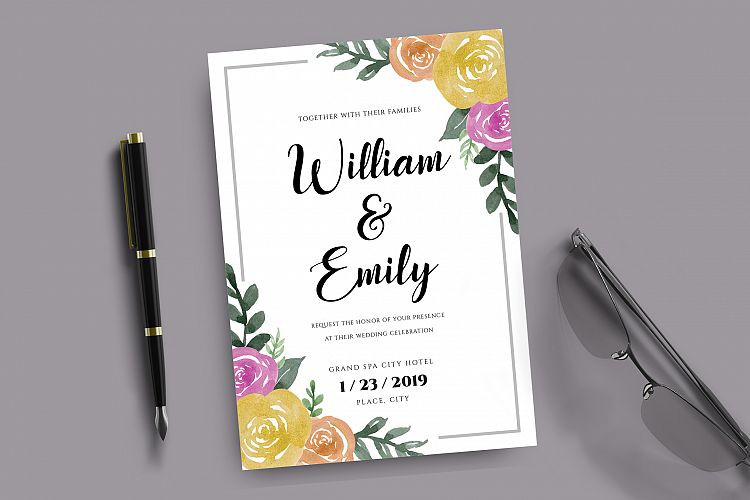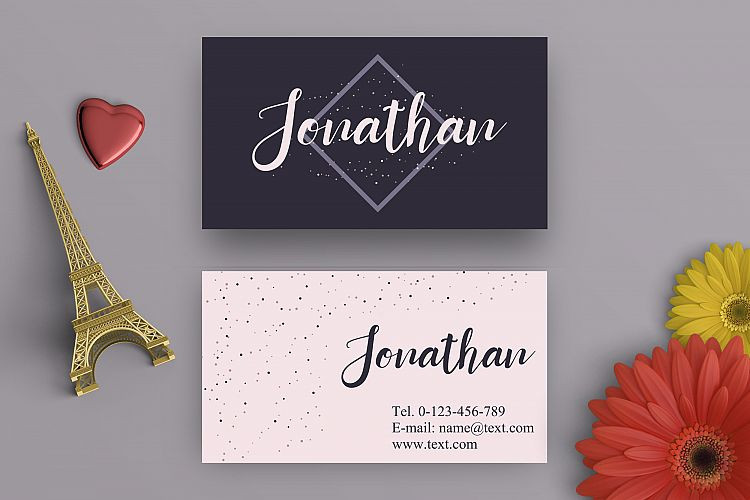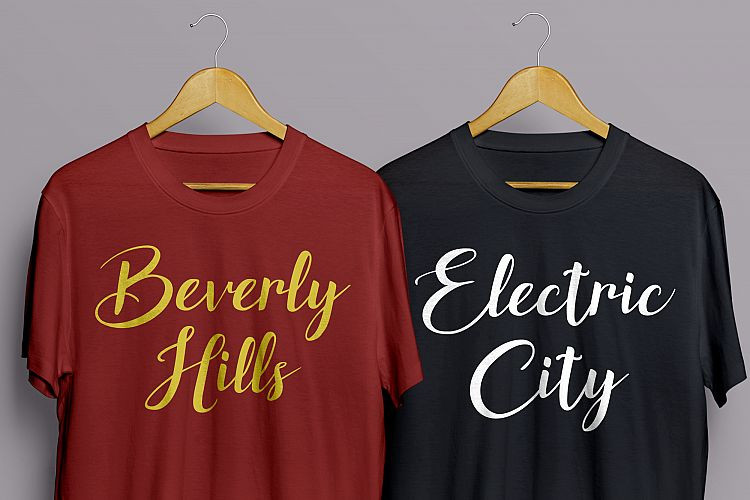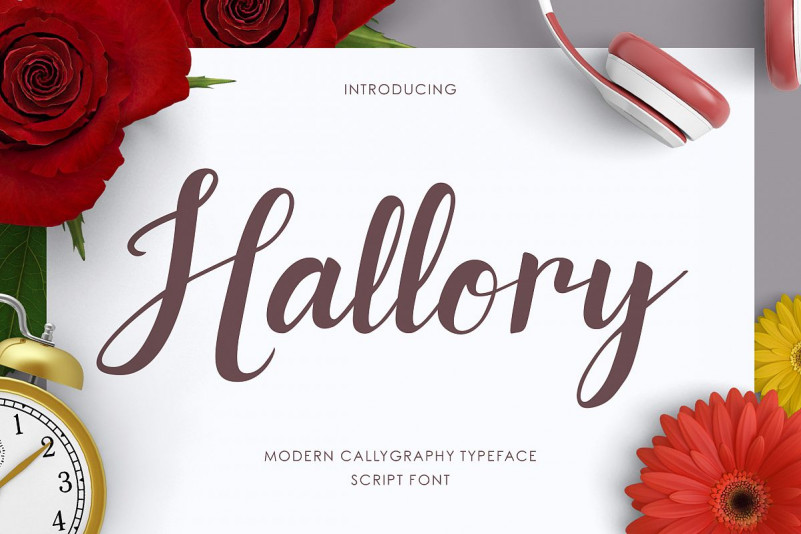
Hallory Script Font
Hallory Script – a beautiful script font with elegant looking and carefully crafted
by hand. Give your designs an authentic luxurious feel with Hallory Script Font.
Hallory is a font that you can use to make a logo for branding, typography design, magazine or book cover, website header, product packaging, invitation, quotes, t-shirt design, label poster and more.
– Ton of glyphs (include Uppercase, Lowercase, Numerals & Punctuations, Stylistic Set, Ligature)